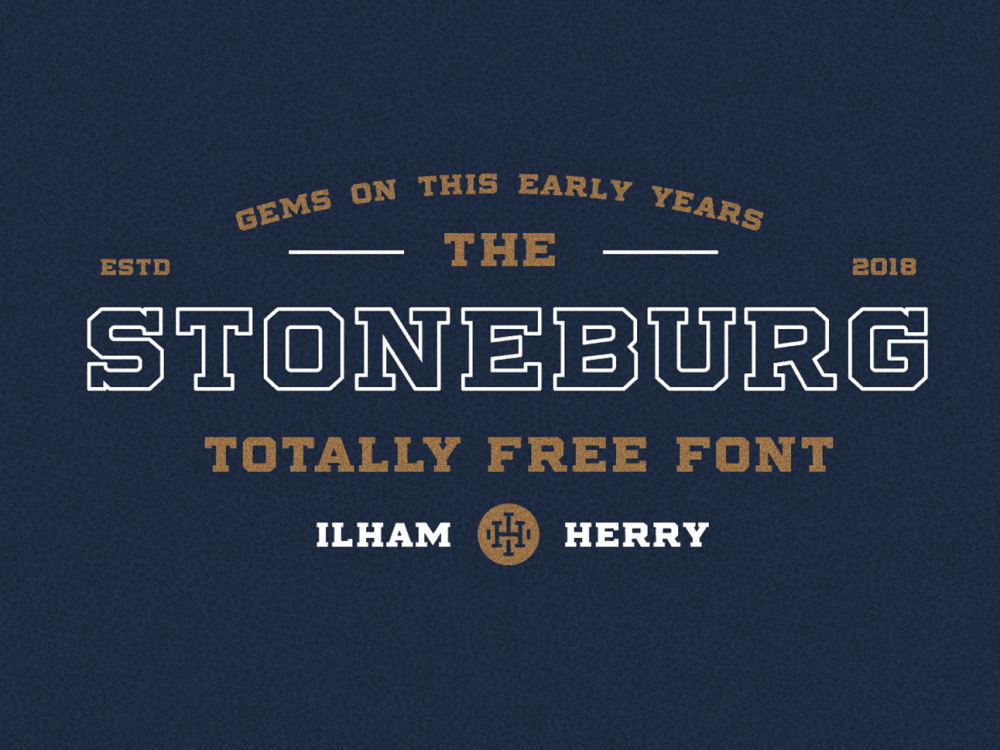
Stoneburg Block Free Font
Bold Font
If you are creating projects in a vintage style and you need an interesting font then Stoneburg Block Free Font is perfect for you. The font has rounded outlines and is made in a retro style. Use this font to design posters, invitations, cards, flyers, prints, and more.